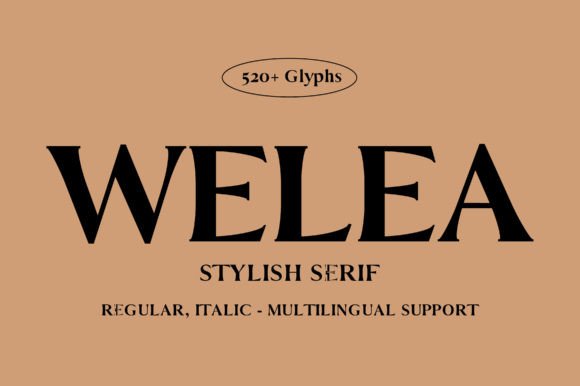
Welea Font
**Unleash the Essence of Wanderlust: Welea, the Font of Enchanting Journeys**
Embark on a typographic adventure with Welea, a serif font family that evokes the allure and elegance of travel. Its meticulously designed glyphs, numbering over 520, paint a vivid tapestry of experiences waiting to be discovered.
With Welea as your guide, your designs will transcend the ordinary and take flight. Its multi-lingual capabilities unlock a world of possibilities, enabling you to craft messages that resonate across borders. Whether you seek to capture the essence of distant lands in branding materials or weave enchanting narratives in website designs, Welea is the font that will ignite your imagination.
Step into a realm where fonts are not mere tools but companions on your creative odyssey. Welea's sleek and modern design invites you to explore new horizons, evoking a sense of wonder and wanderlust with every stroke. Its bold and captivating presence commands attention, ensuring your designs leave an indelible mark on the hearts and minds of those who encounter them.
Embrace the spirit of exploration and let Welea be your muse. Its versatility extends beyond language, adapting seamlessly to a multitude of design projects. From social media graphics that ignite wanderlust to captivating presentations that transport audiences to faraway lands, Welea empowers you to weave tales that inspire and captivate.
Join the ranks of explorers who have discovered the transformative power of Welea. Let its elegant curves and sophisticated strokes guide you on an extraordinary journey, where fonts become the compass and your imagination the limitless horizon.